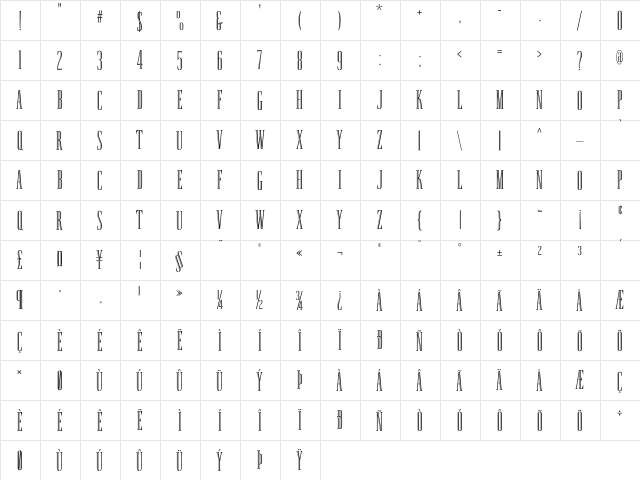
KathCondensed InlineBold
Design Context for KathCondensed Typeface
KathCondensed brings ornamental detail and strong personality to headlines and identities, where visual impact matters more than quiet functionality. Its bold stroke weight gives it real presence on the page.
Font Pairing: Pair with a clean neutral sans-serif for body copy to let KathCondensed's character lead without overwhelming the composition.
Pro Tip: Use KathCondensed exclusively at display sizes — it was designed to be seen, not read at length. Let a neutral companion handle body copy.